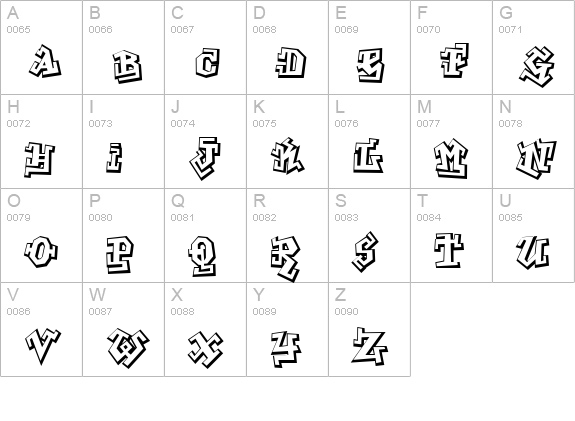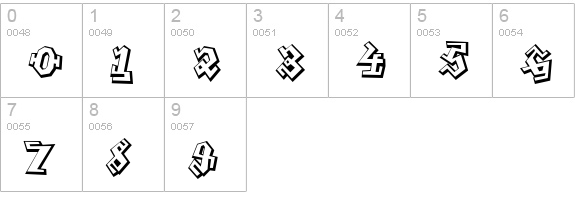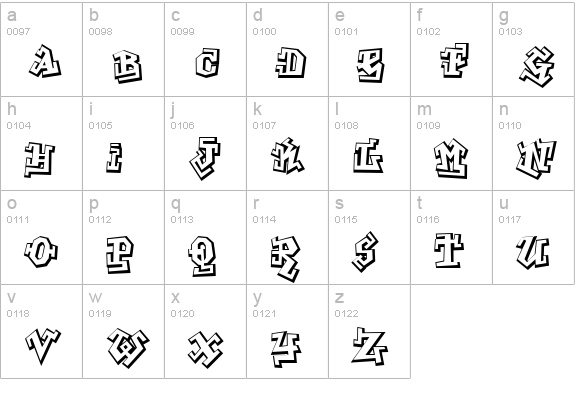
Graffiti Treat Font Details
Graffiti Treat font is a dynamic and edgy typeface that captures the urban artistry of graffiti. With its bold and expressive strokes, this font is perfect for adding a touch of rebellious flair to your projects. Whether you're working on a street art-inspired design or looking to make a statement with your typography, Graffiti Treat font is sure to make an impact. The best part? Graffiti Treat font is completely free to download at FontsMarket.com. That's right, you can add this striking font to your collection at no cost at all. So go ahead and unleash your creativity with Graffiti Treat font - the ultimate tool for bringing a touch of urban cool to your designs.